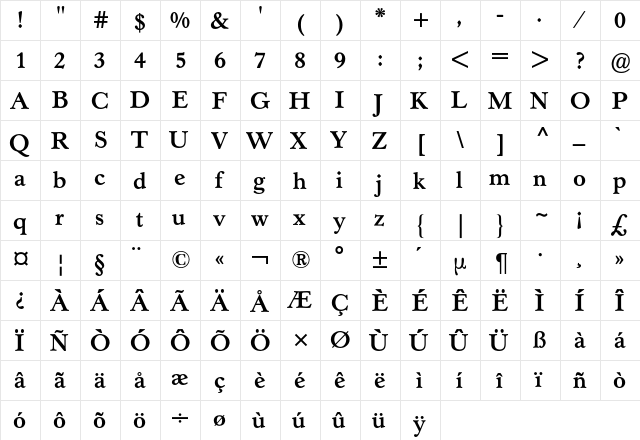
Horley Old Style BQ Regular
Design Context for Horley Old Style BQ Typeface
Horley Old Style BQ offers clean, dependable letterforms without strong stylistic allegiance, making it a practical choice for designers who need flexibility.